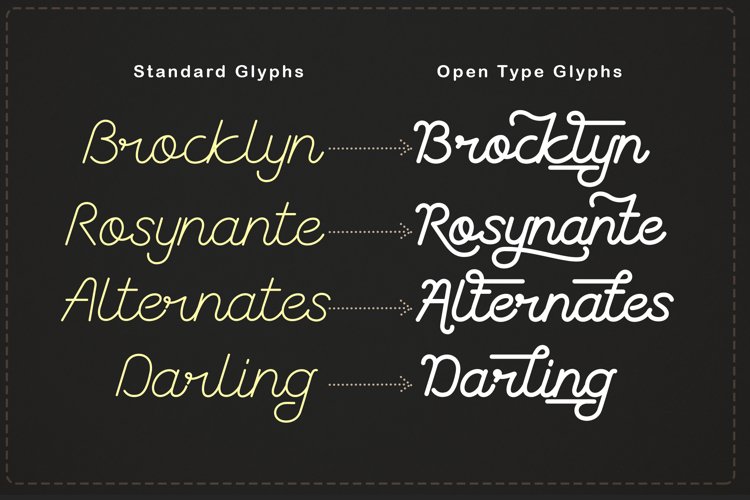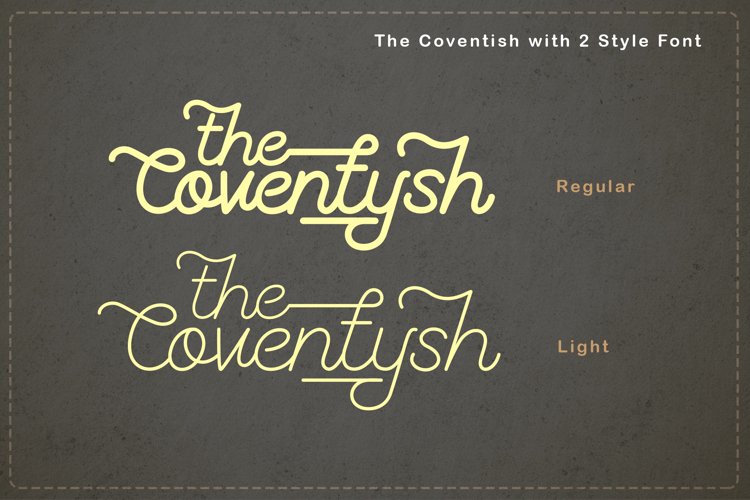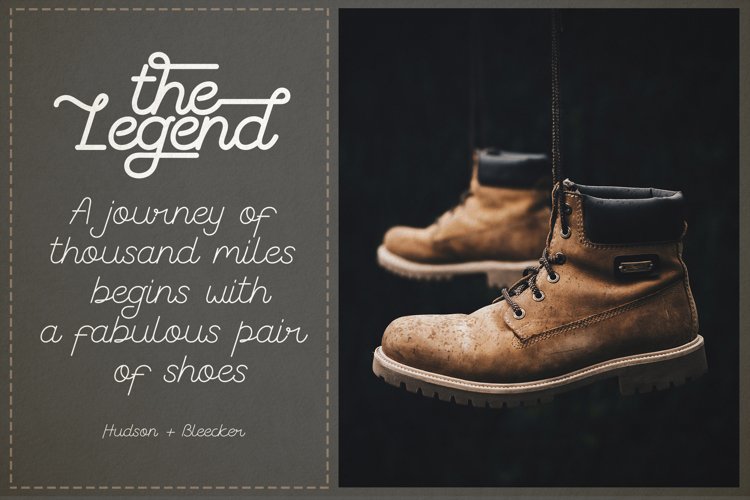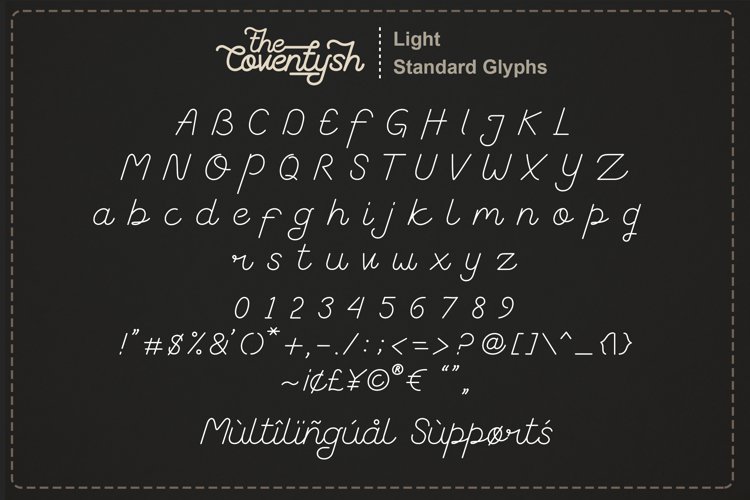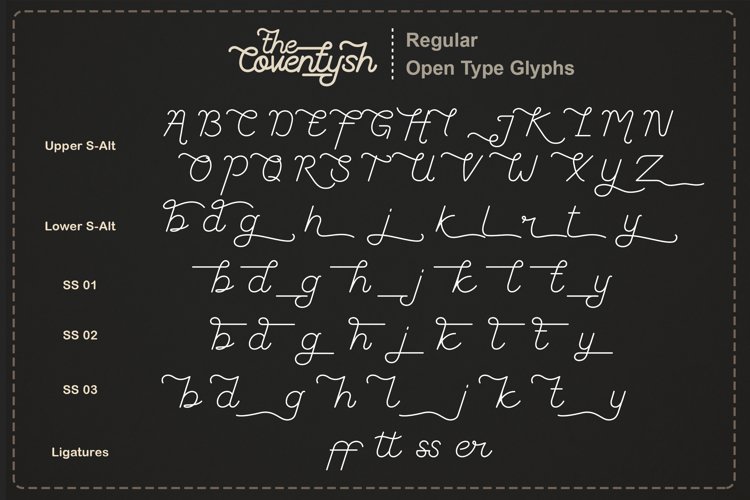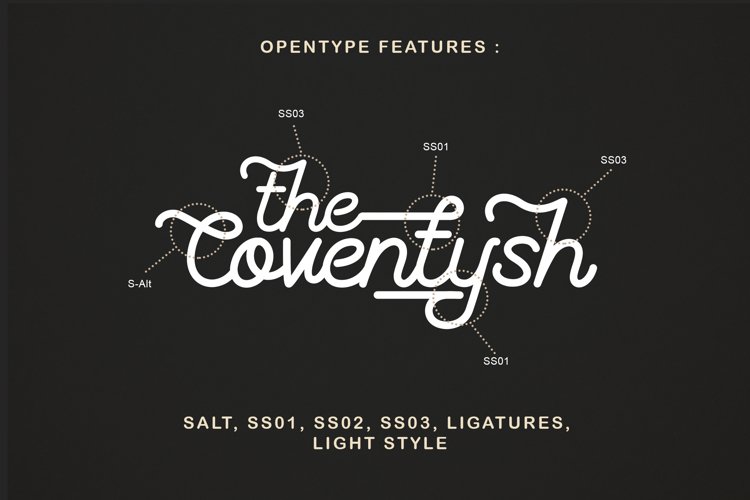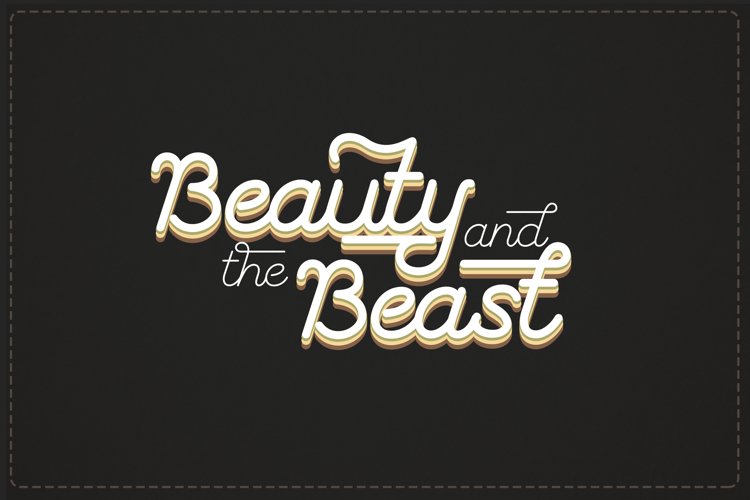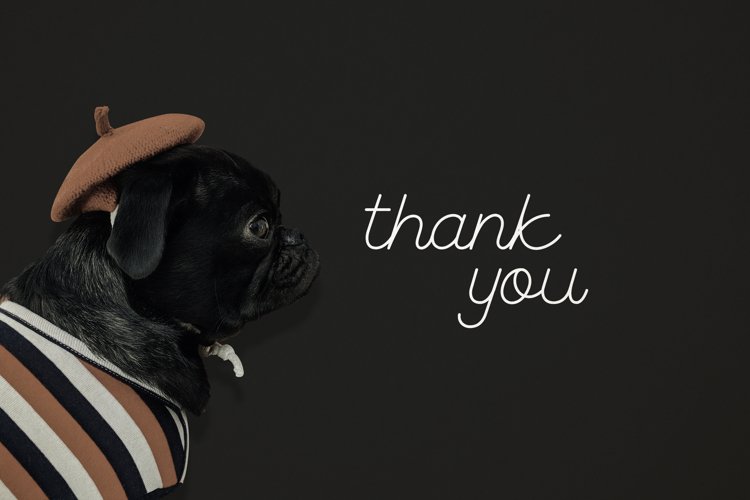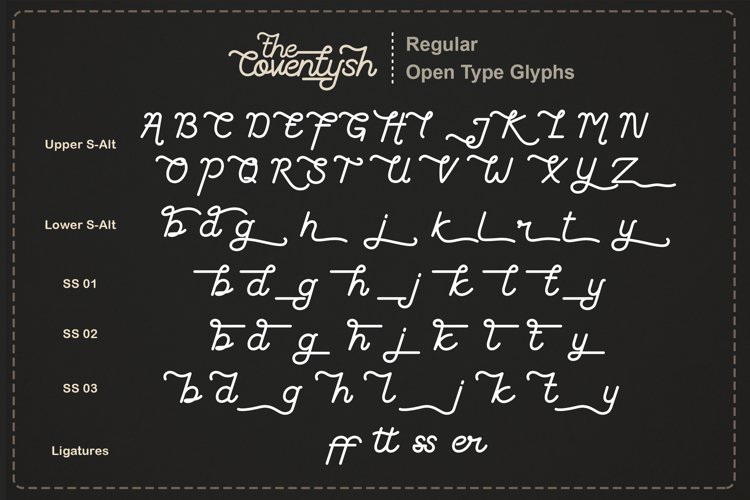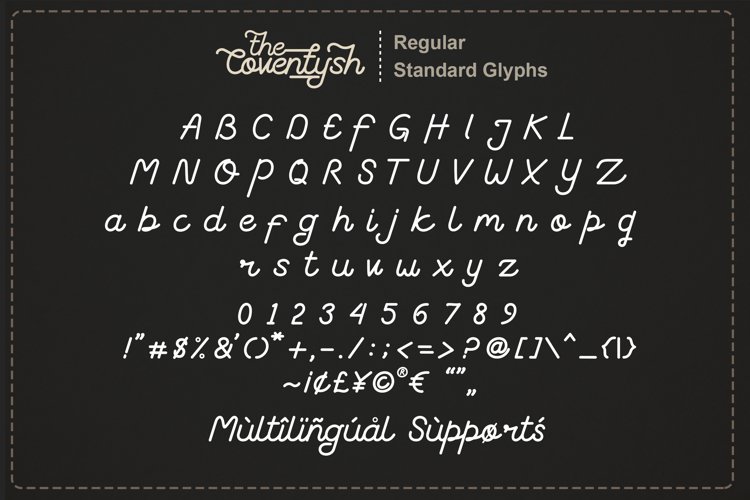
the coventysh monoline script font
The Coventysh is a beautiful and Elegant Mono-Line Script Font, Available 2 weight styles are perfect for Logo Design, Branding, Clothing Design, Signage, Poster, Wedding Invitations and so much more! My goal for this font was to create an easy-to-read Monoline Font Script that serves a variety of purposes. The Coventysh, It has a handcrafted feel and natural touch then tidied up to create a consistent character set. It is perfect for your creative projects.
• S-Alt, SS01, SS02, SS03, Ligature
• 2 Weight Style (Regular and Light)